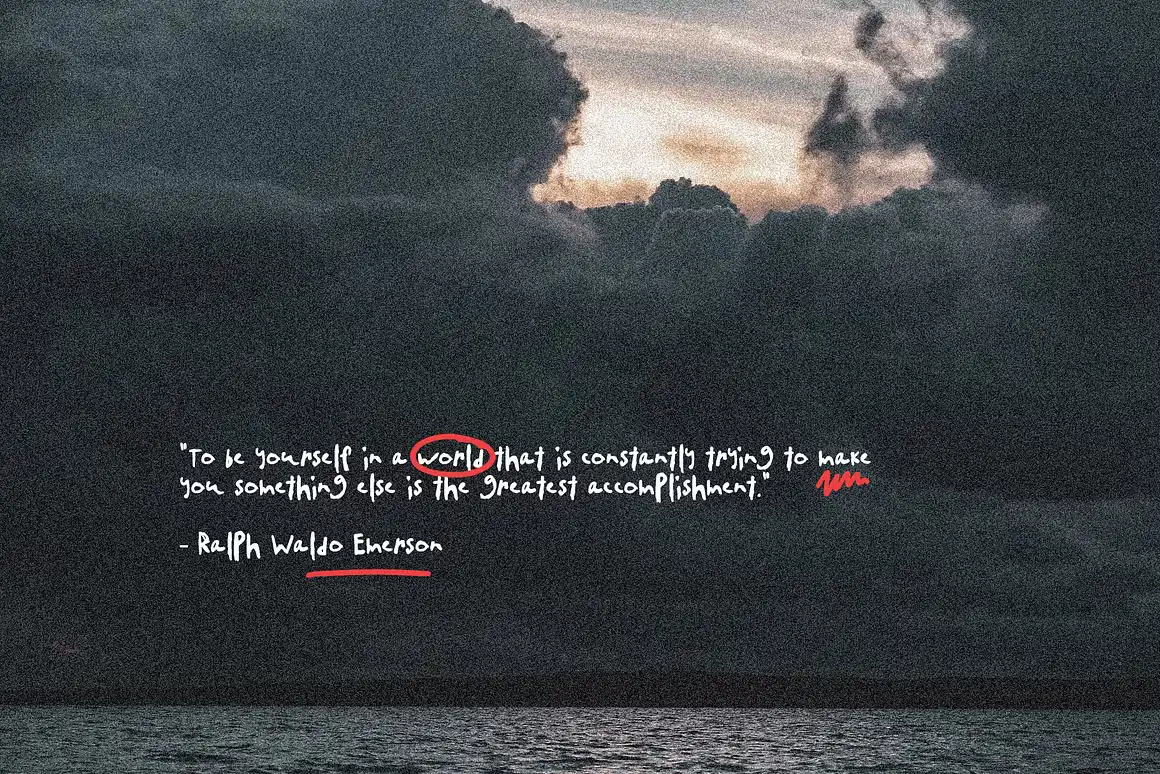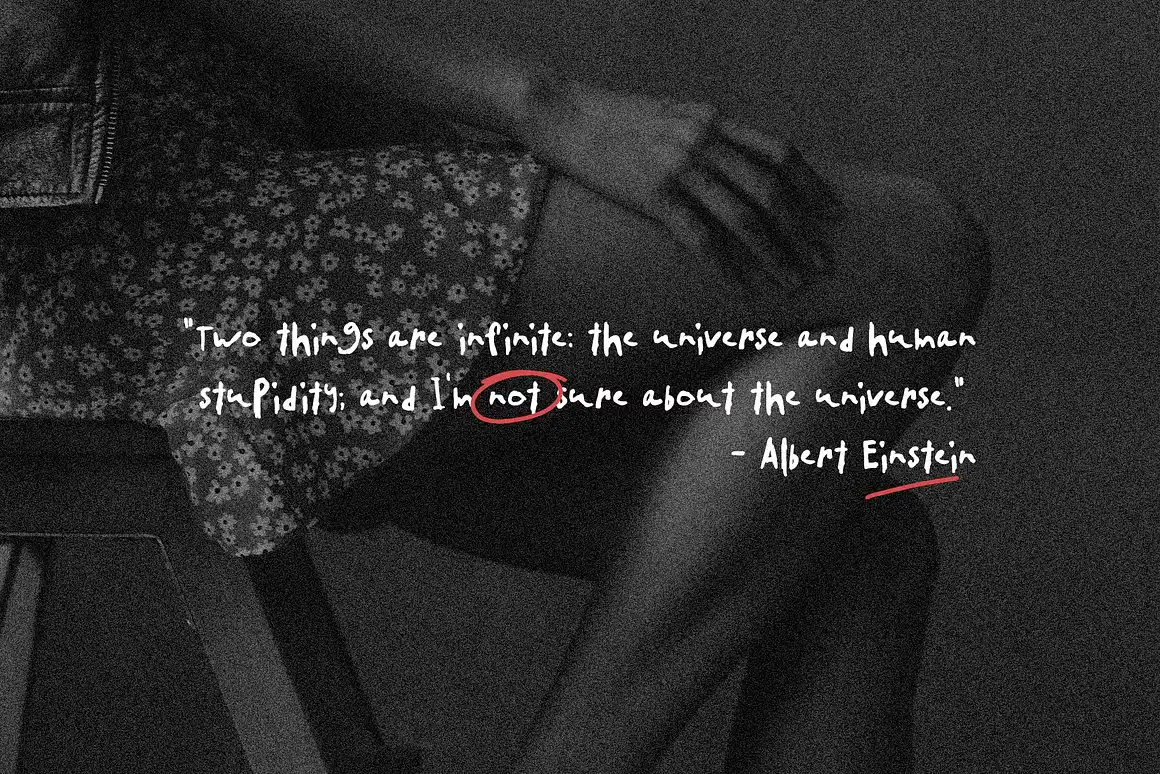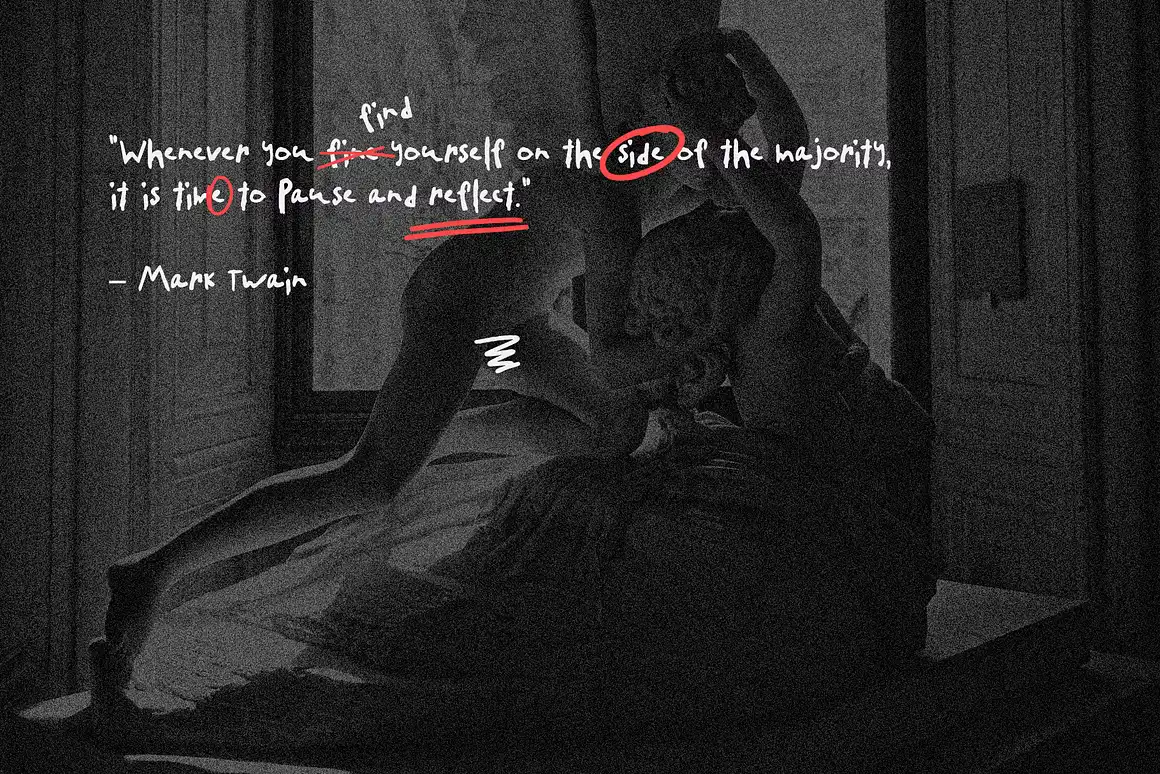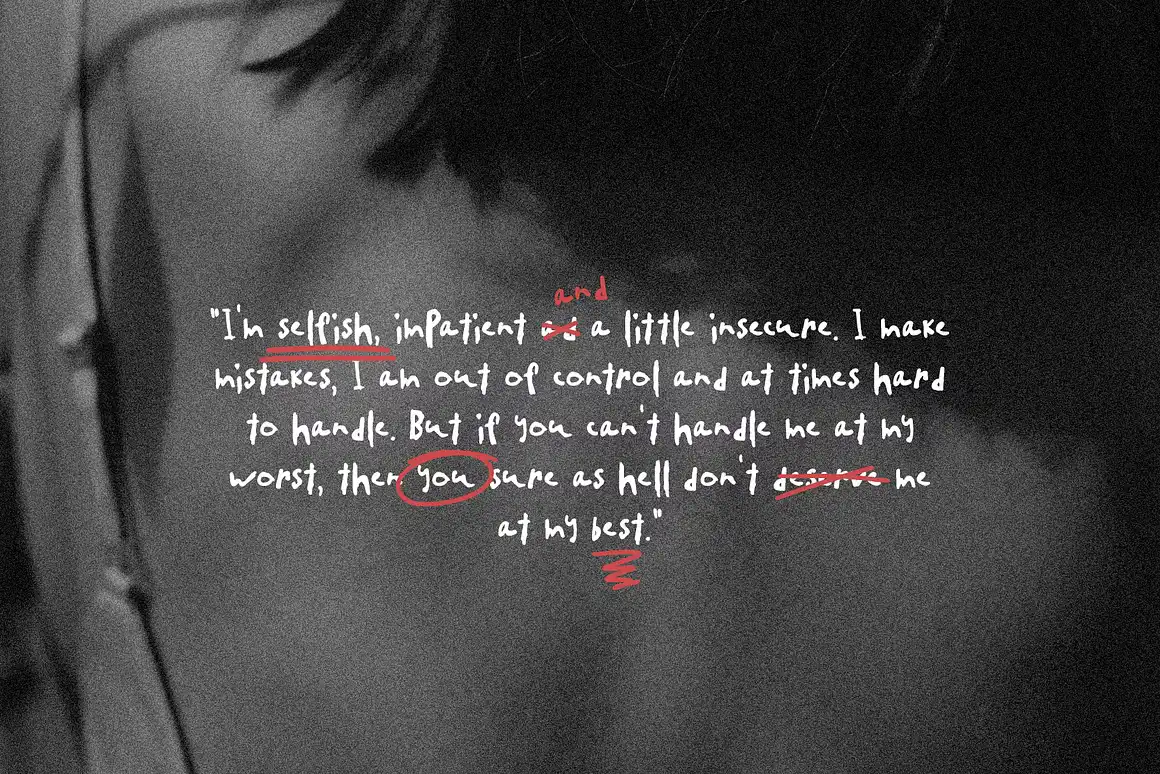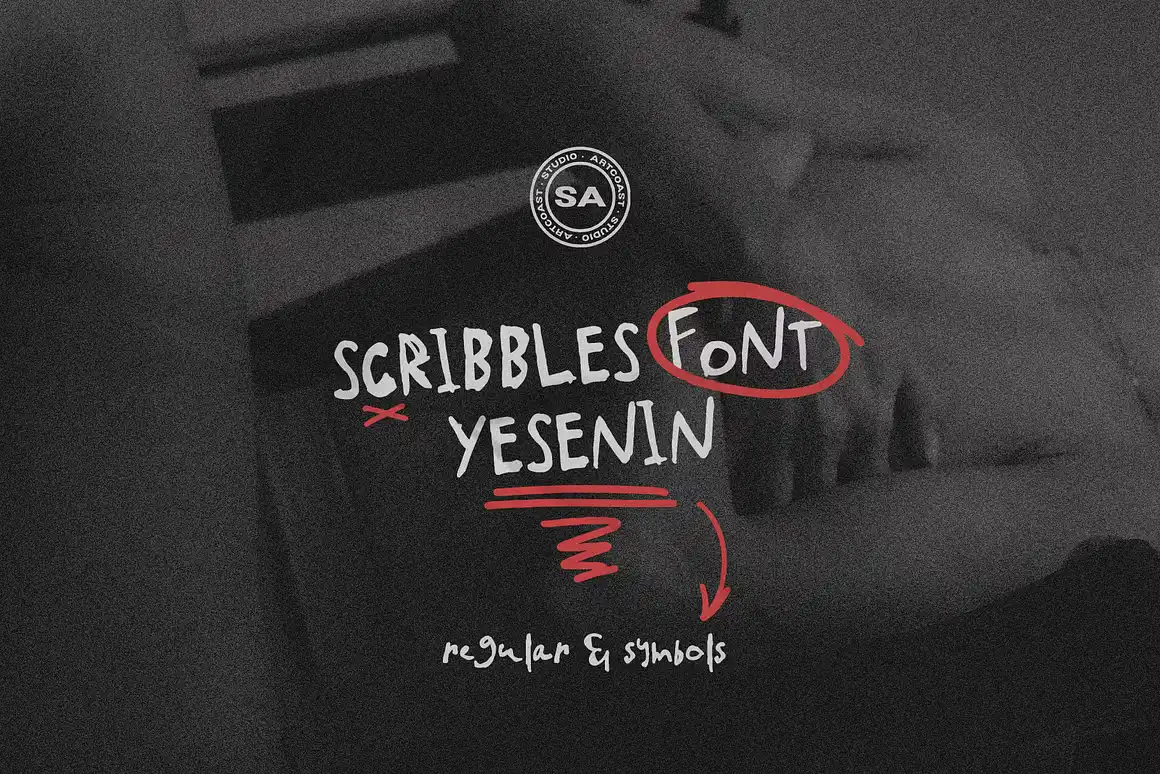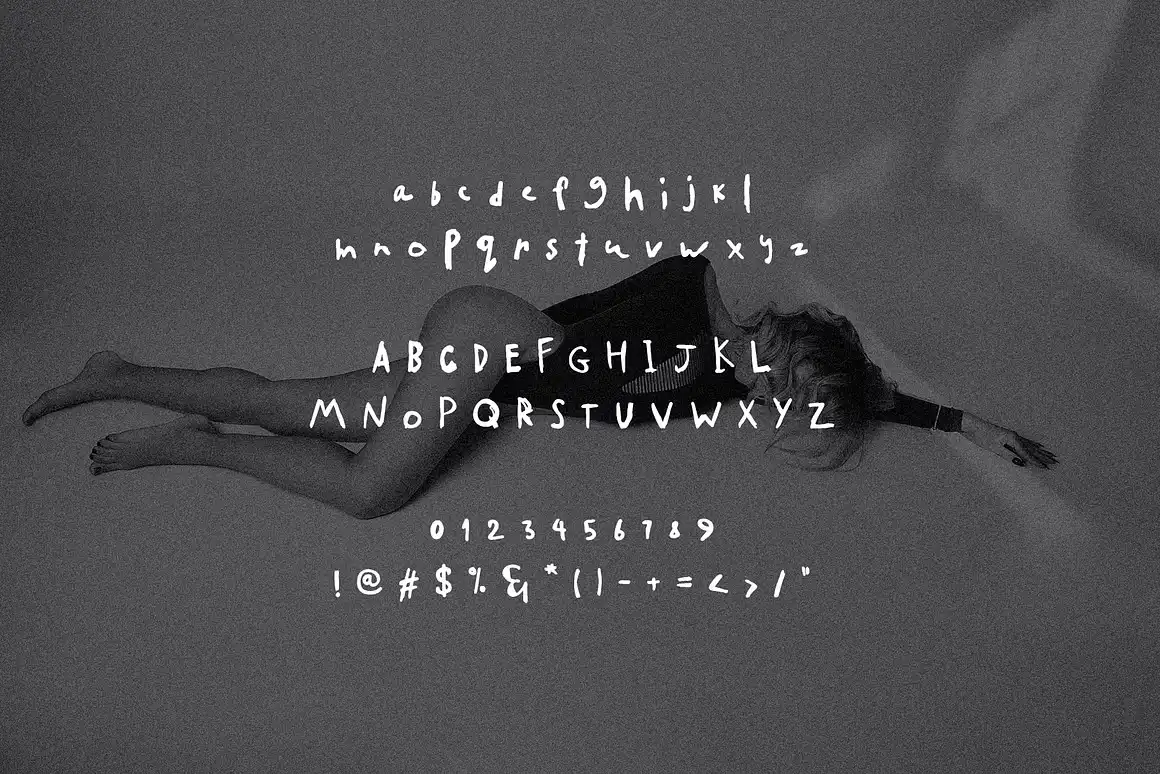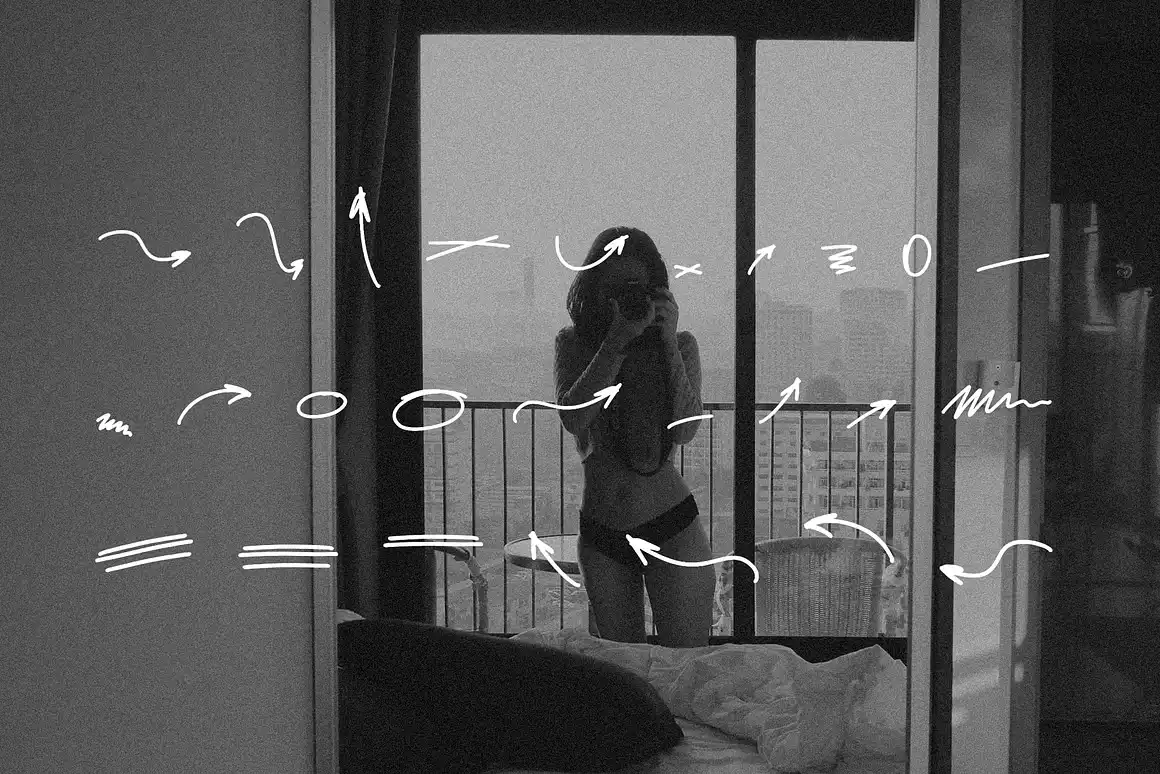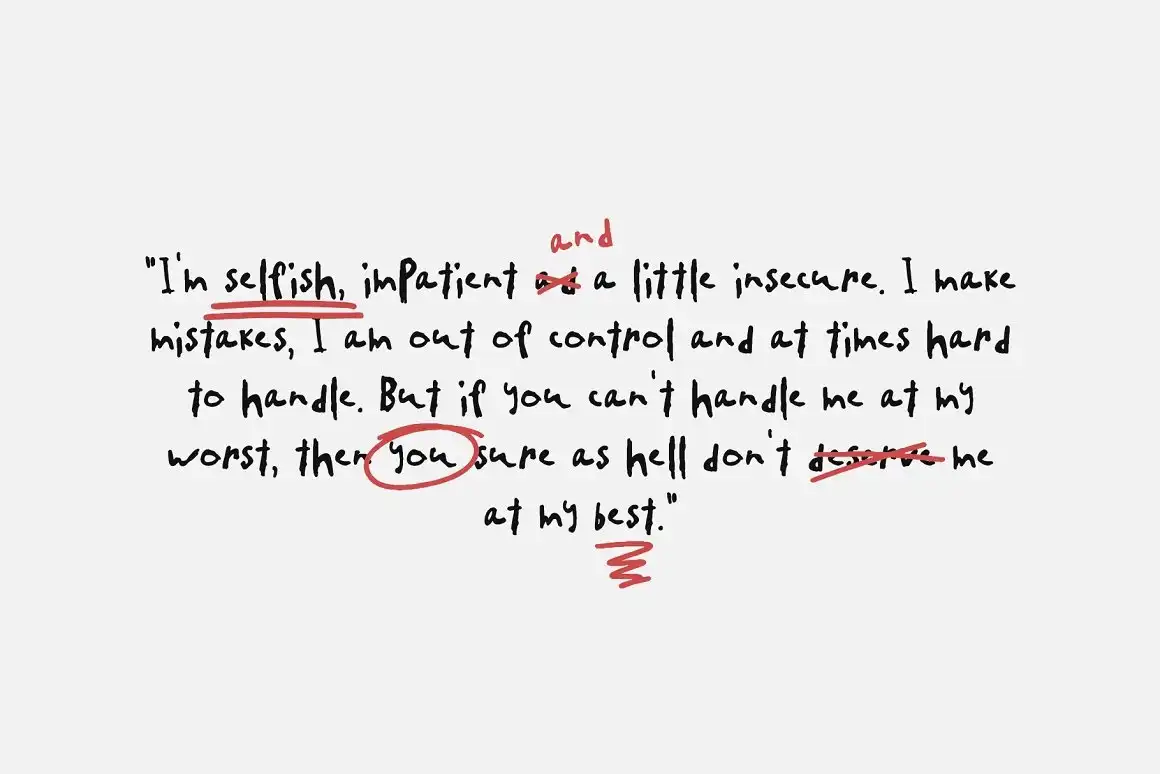
Welcome to the World of SA Yesenin Realistic Scribbles Font!
Are you ready to add a touch of whimsy and creativity to your projects? The SA Yesenin Realistic Scribbles Font is a delightful digital download that brings your ideas to life with its charming handwritten style! 🎉 With instant access, you can start creating beautiful designs right away!
This crazy, playful font features both upper and lower case letters along with unique handwritten doodles in two distinct styles. Perfect for crafting quotes, posters, and all your creative endeavors, this font is sure to spark joy in your designs. Whether you’re working on a fun Halloween project or personalizing your journal, the SA Yesenin font will add a trendy touch to your work! ✍️
- Handwritten Style: Perfect for adding a personal touch to your designs, making them feel warm and inviting.
- Two Styles: Offers versatility for various projects, from playful notes to elegant invitations.
This font is ideal for graphic designers, illustrators, and anyone looking to add a fun, handwritten flair to their projects. Whether you’re crafting a spooky Halloween invitation or personalizing your notes, the SA Yesenin font will surely inspire creativity! 🖌️